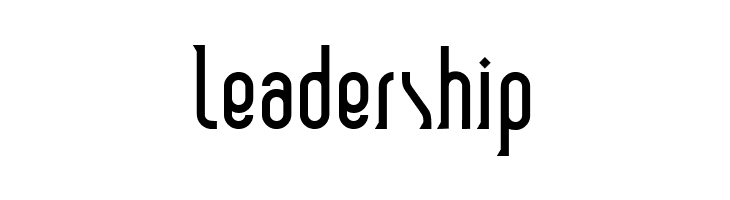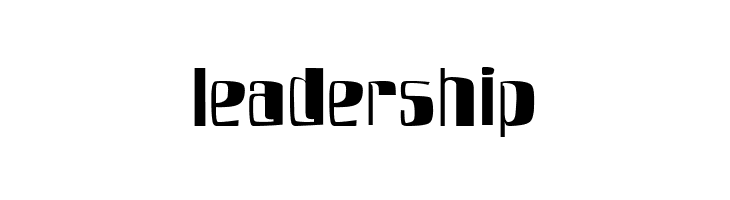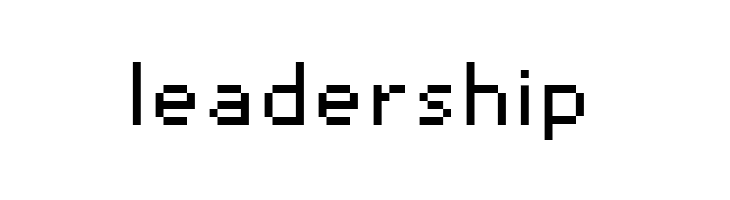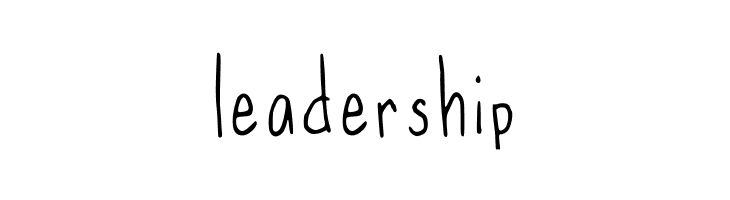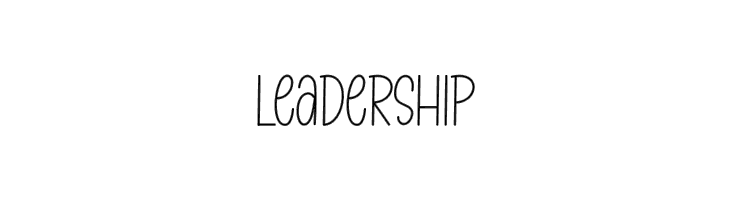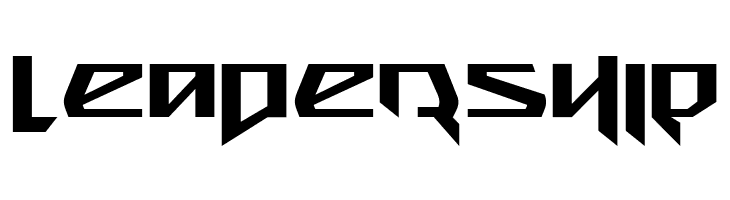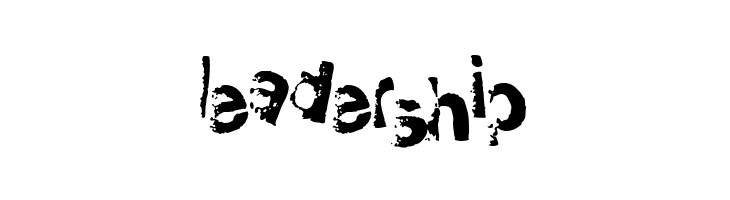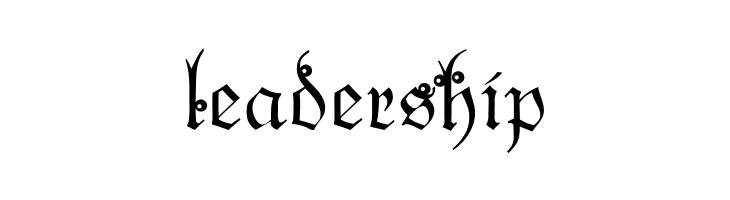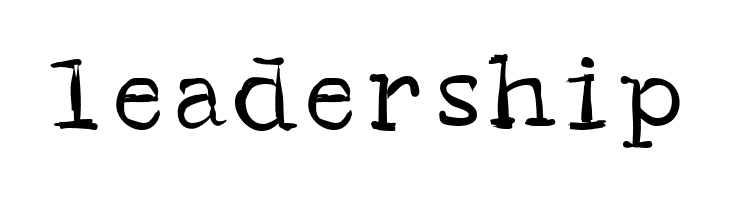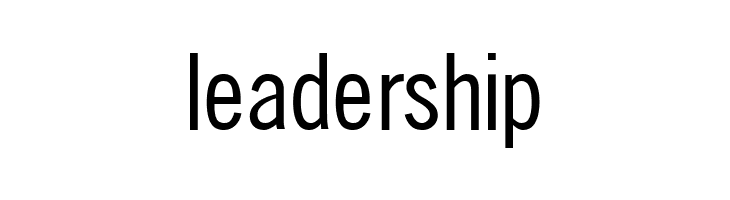
A bold, playful slab serif font with a hand-drawn, whimsical style.
A playful, handwritten slab serif font with an italicized style.
A bold, outlined, handwritten-style font with a playful and casual appearance.
A classic slab serif font with strong, rectangular serifs and consistent stroke width.
Illustrative dingbat font with sleep-themed drawings.
A dynamic, hand-drawn calligraphic font with fluid, expressive strokes.
( Fonts by Andi Moz )
Playful, narrow font with rounded edges.
( Fonts by Andreana Celestinne Aguilar )
A slim, handwritten font with a casual and modern style.
A bold, dripping font with a spooky, oozing effect.
A bold, modern font with sharp angles and a striking presence.
( Fonts by Andreas Hofeld - www.fontgrube.de )
A bold, high-contrast font with a modern, geometric style.
A modern, sleek sans-serif font with tall, narrow characters and uniform stroke width.
A modern, slim sans-serif font with a clean and balanced appearance.
A bold, sans-serif typeface with a strong and impactful presence.
A bold, Gothic-style font with sharp, angular edges and a medieval aesthetic.
( Fonts by Levi Halmos )
A modern, geometric font with elongated, narrow characters and a stylish appearance.
( Fonts by Levi Halmos )
A bold, distressed typewriter-style font with a modern, handcrafted feel.
A bold, distressed font with a modern, edgy style.
( Fonts by Andrew McCluskey - nalgames.com )
A classic serif font with medium contrast and elegant serifs.
( Fonts by Risa Andarwati Wazirotun )
A playful, spiral-accented decorative font with bold strokes.
( André Felipe - www.behance.net/andfelcaslop )
A bold, pixelated font with a retro, digital aesthetic.
A pixelated, retro-style font with a digital, grid-like appearance.
An ornate blackletter font with intricate details and a gothic aesthetic.
( dcoxy - Greg Medina - www.dcoxy.com/ )
A modern, rounded font with consistent stroke width and playful design.
( dcoxy - Greg Medina - www.dcoxy.com/ )
A playful, rounded font with smooth curves and consistent stroke width.
( Fonts by Andi Moz )
A playful and bold font with rounded, whimsical characters.
A bold, decorative font with Gothic influences and intricate detailing.
A bold, geometric font with decorative snowflake patterns.
A bold, futuristic font with sharp, angular lines and geometric shapes.